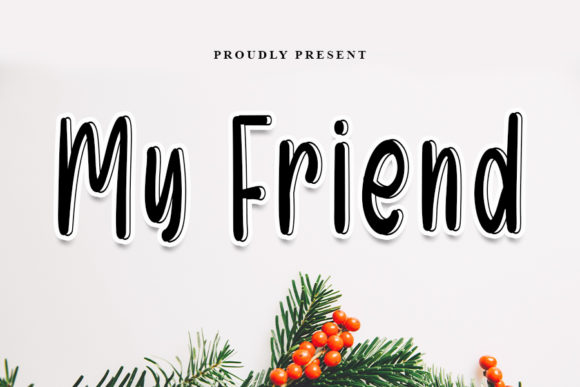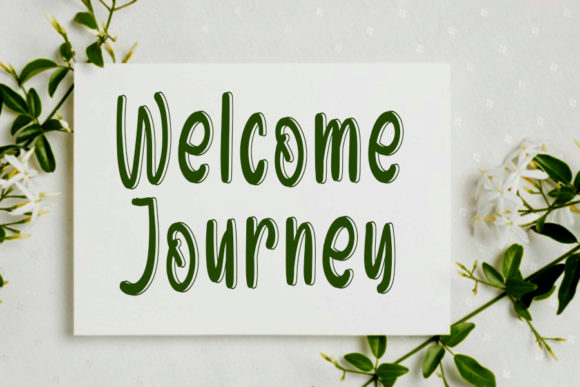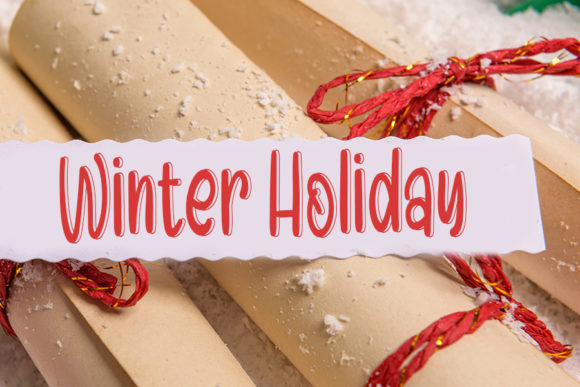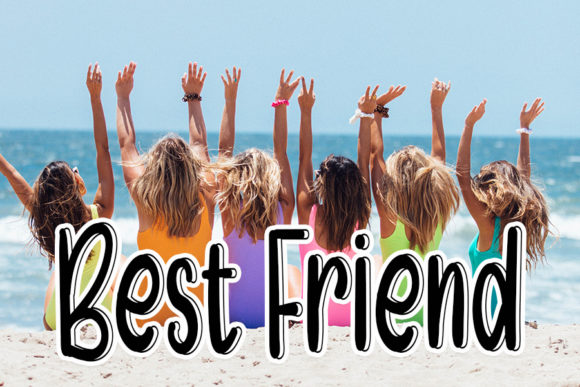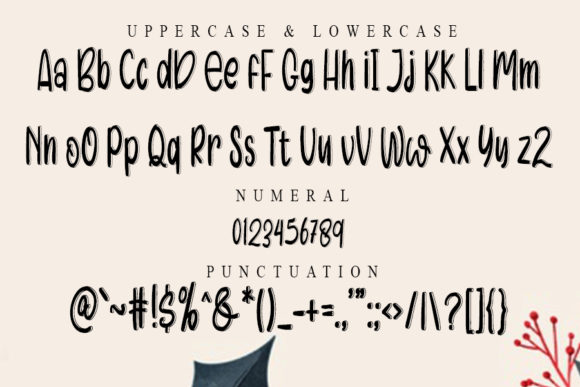
My Friend Font
About My Friend Font
My Friend is a sweet and friendly handwritten font. Its natural and unique style makes it incredibly fitting to a large pool of designs.